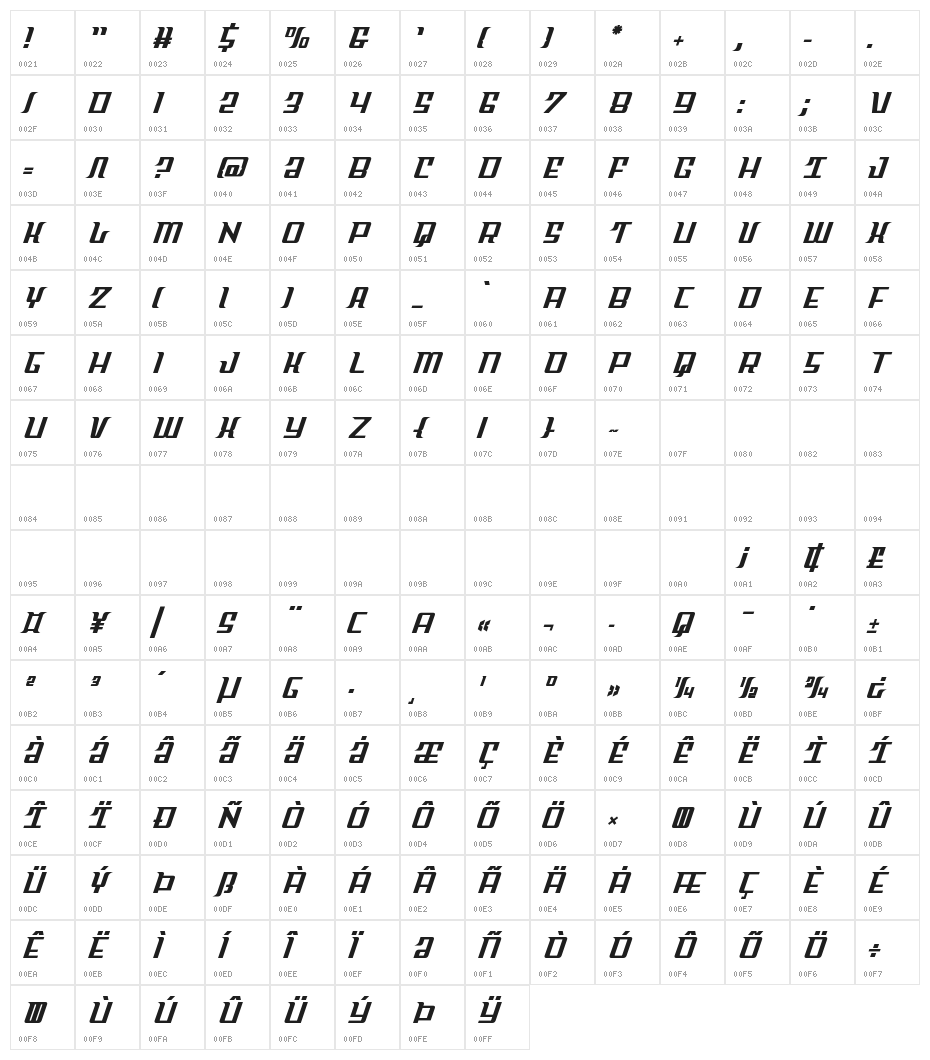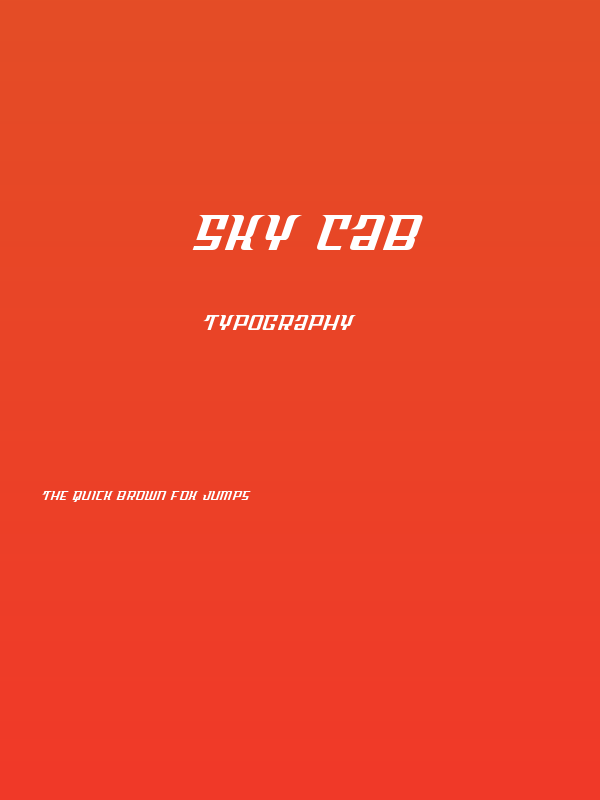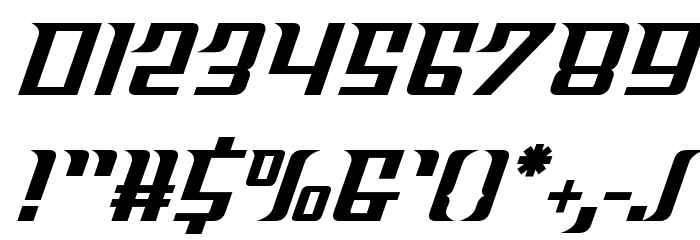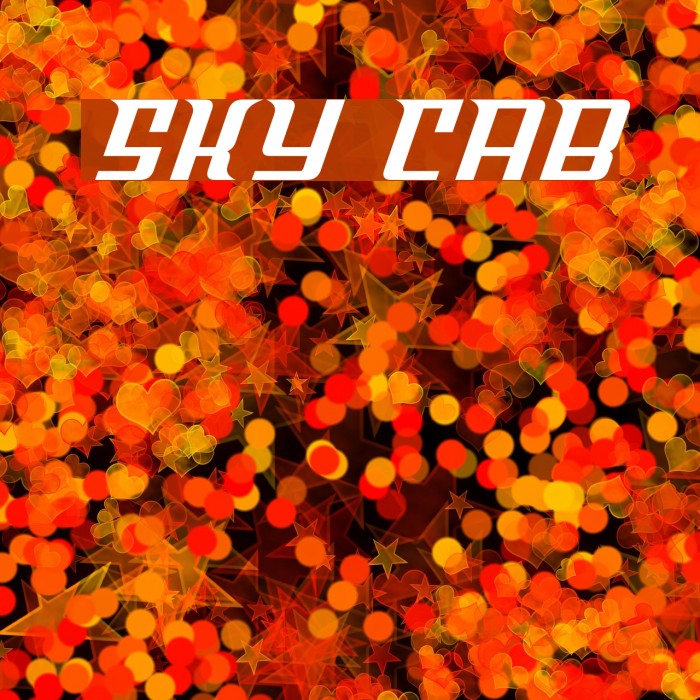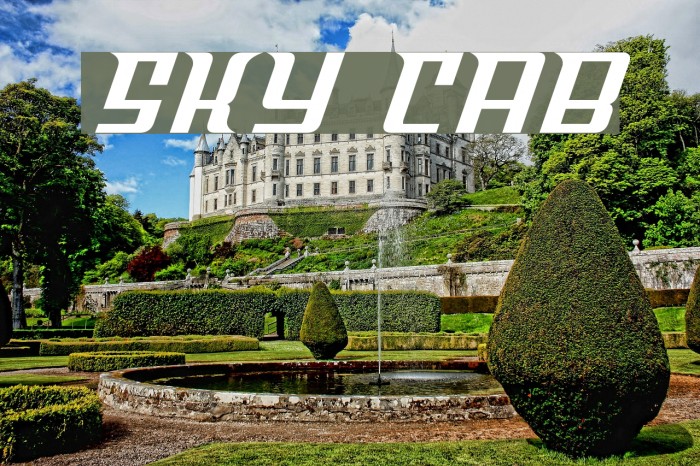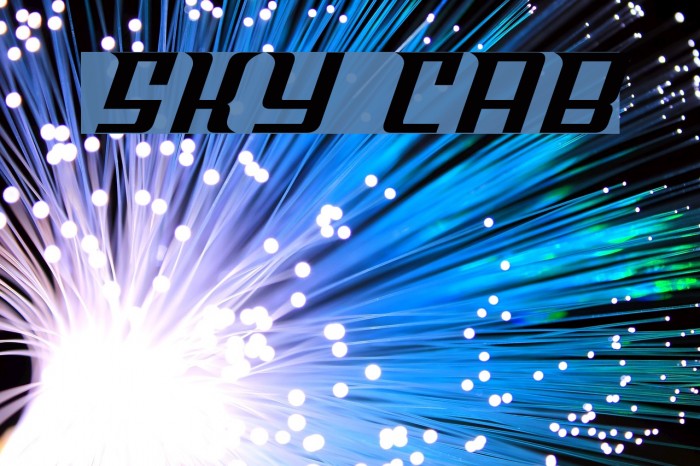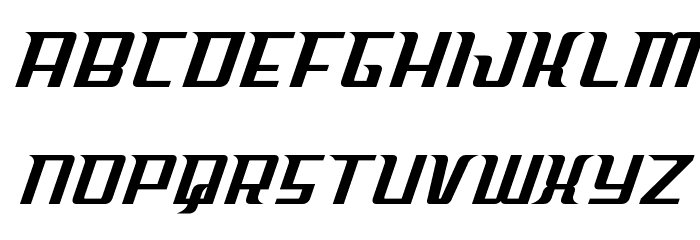
Sky Cab Font
Sky Cab Description
This font features a bold, angular design with a strong geometric influence. The characters are sharply defined with a forward-leaning slant, giving a sense of motion and speed. The uppercase and lowercase letters maintain a consistent style, with the uppercase being more pronounced. Numbers and special characters are designed to match the overall aesthetic, with a focus on sharp edges and dynamic shapes. The font's unique style makes it stand out, ideal for projects that require a modern and edgy look.
| Proposed Projects | Perfect for sports branding, automotive logos, video game titles, and dynamic posters. |